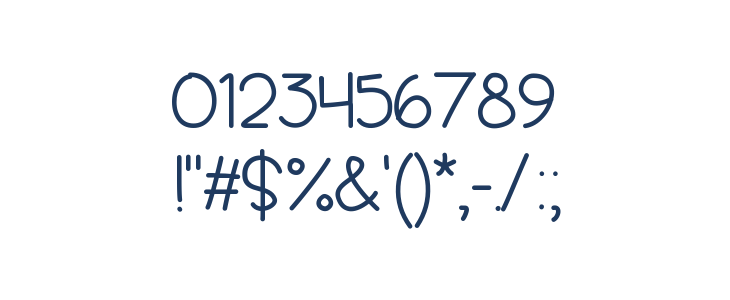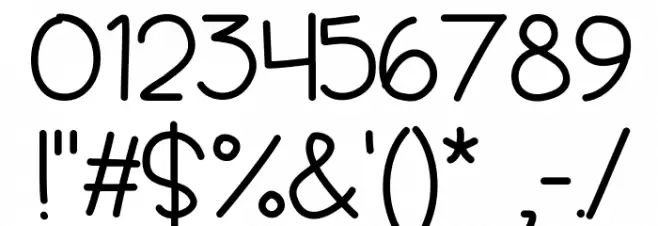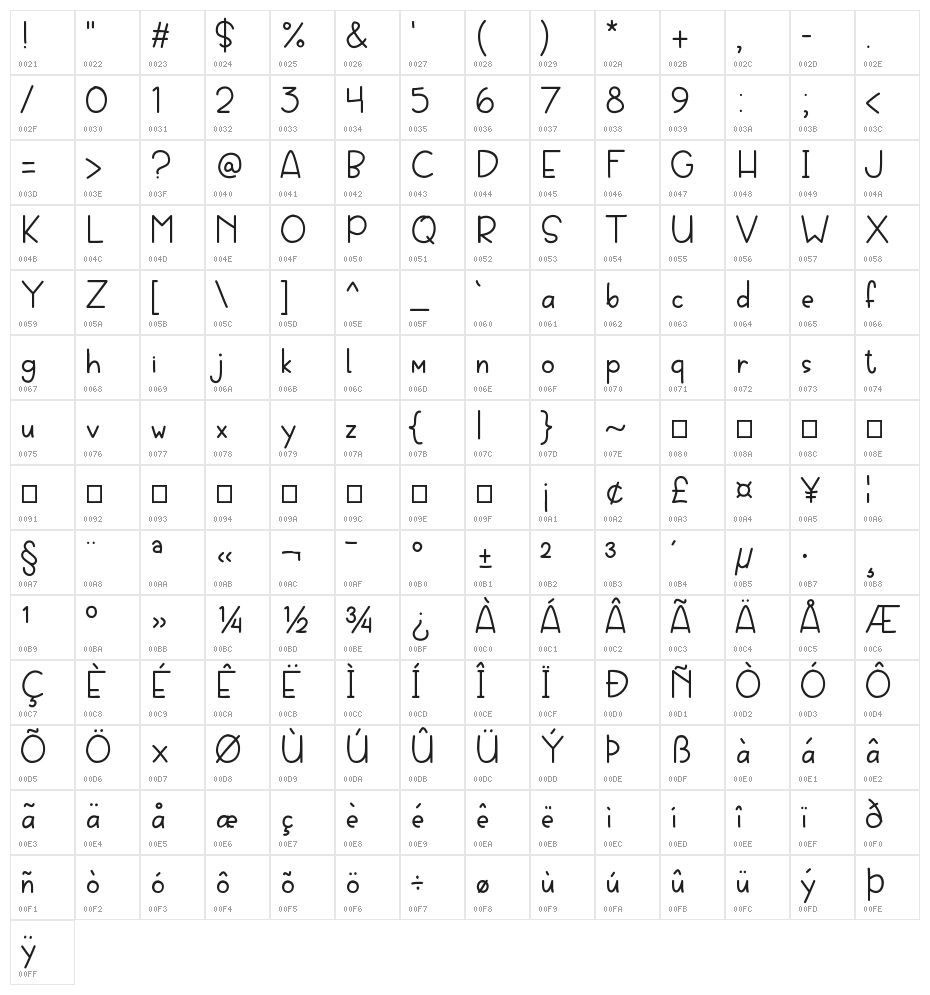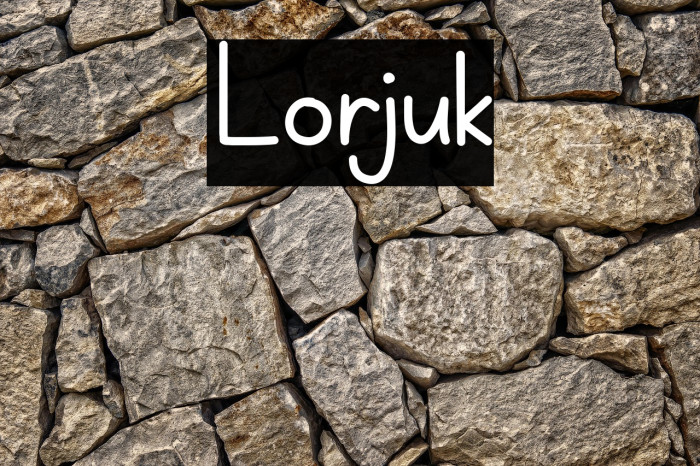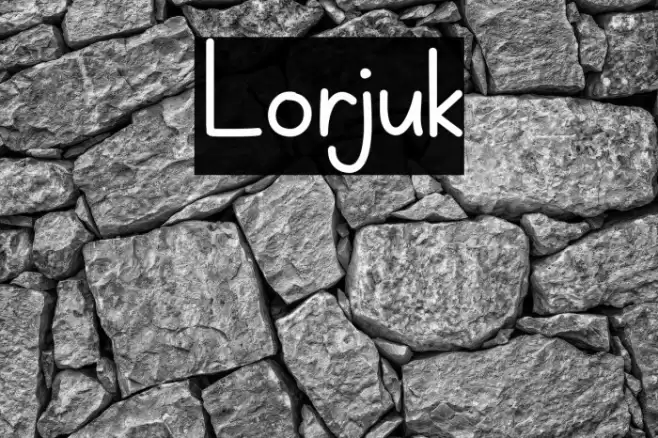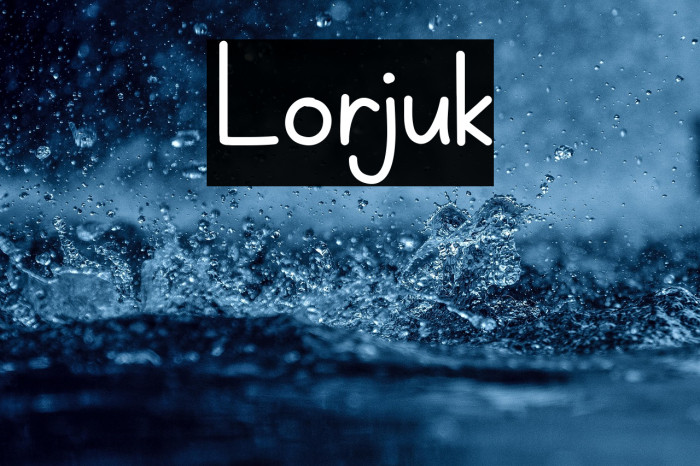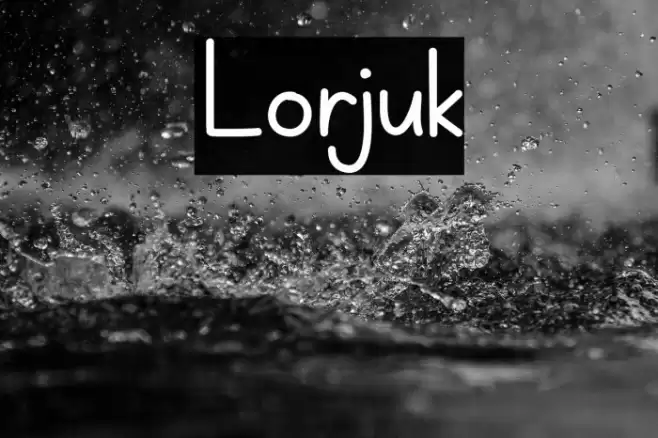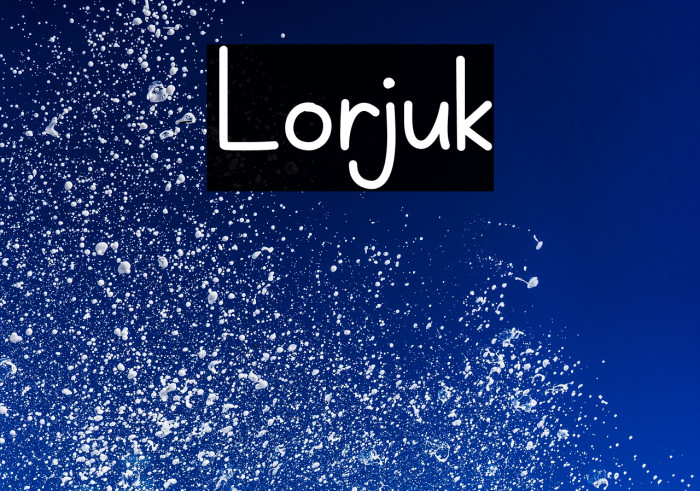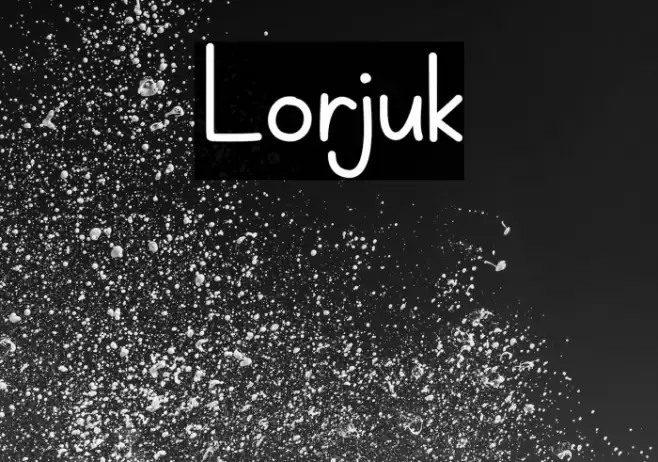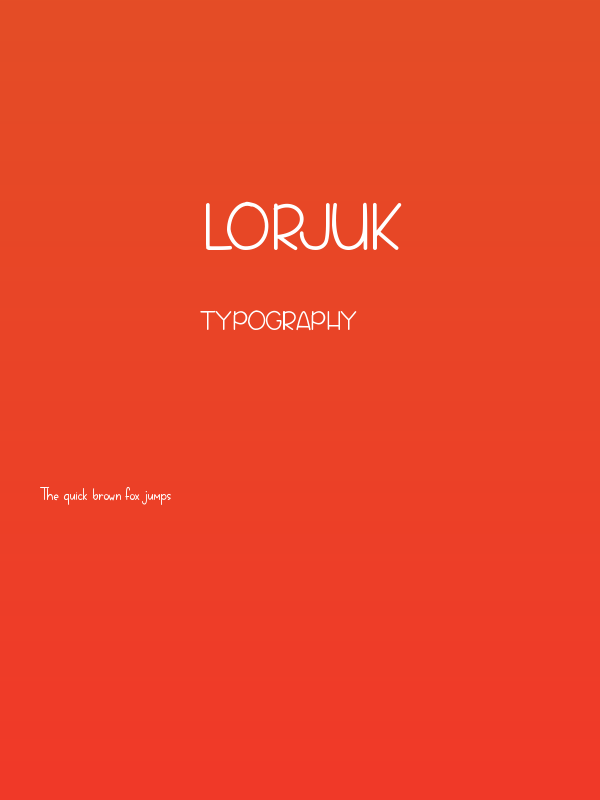
Lorjuk Font
Lorjuk Description
This font features a playful and casual handwritten style, characterized by its rounded and slightly irregular letterforms. The uppercase letters are tall and narrow, while the lowercase letters maintain a consistent height with a friendly, approachable appearance. The numerals are bold and clear, matching the overall whimsical aesthetic. Special characters are well-integrated, maintaining the font's cohesive look. The strokes are consistent in weight, providing a uniform appearance across all characters. This font exudes a sense of fun and creativity, making it ideal for informal and lighthearted projects.
| Proposed Projects | Ideal for children's books, greeting cards, playful branding, and casual invitations. |